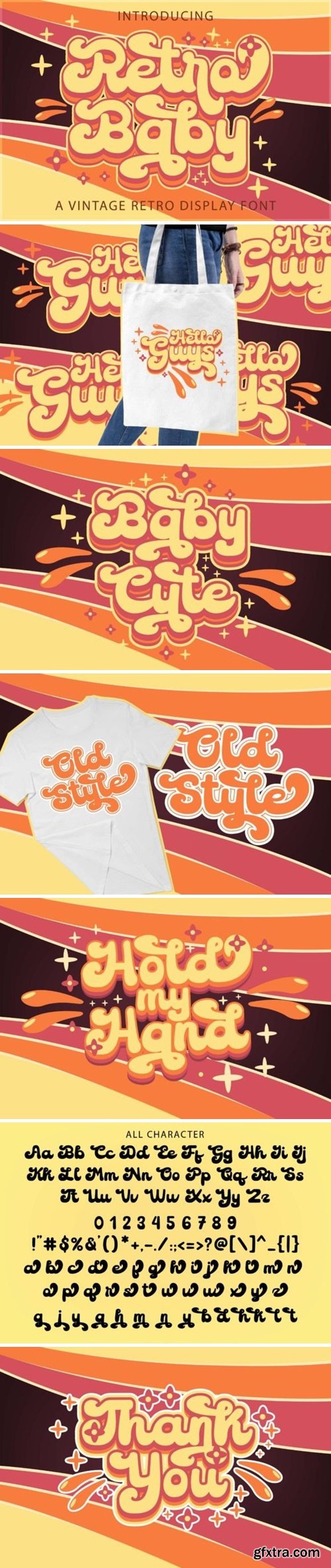
复古婴儿体
Retro Baby is a cool, vintage-style handwritten font. Use it to add that special retro touch to any design idea! It can be used for logos, branding, invitations, stationery, wedding designs, social media posts, and much more!